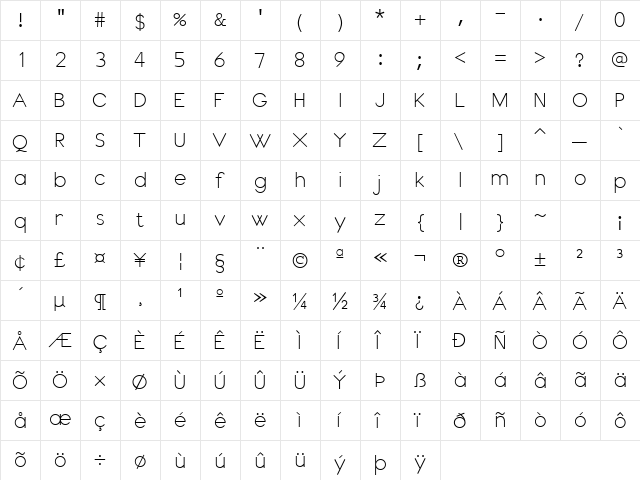
HoosickFalls Regular
Design Context for HoosickFalls Typeface
HoosickFalls takes a measured approach to typography — its balanced proportions and neutral character make it a reliable workhorse for both digital and print work.
Pro Tip: Use HoosickFalls in both headline and body roles to test its range before committing to a single application.